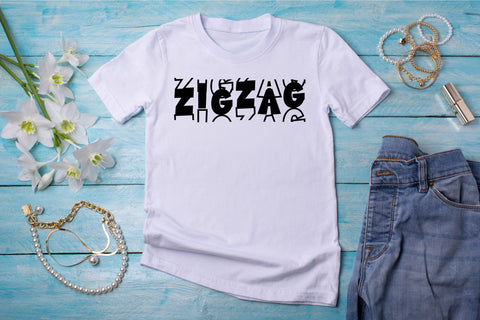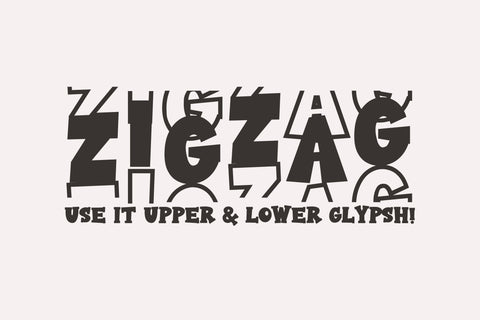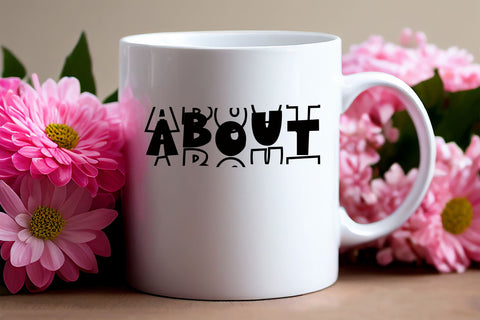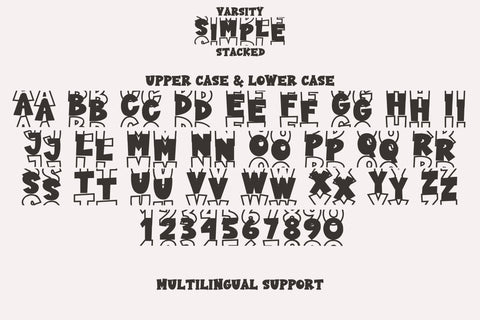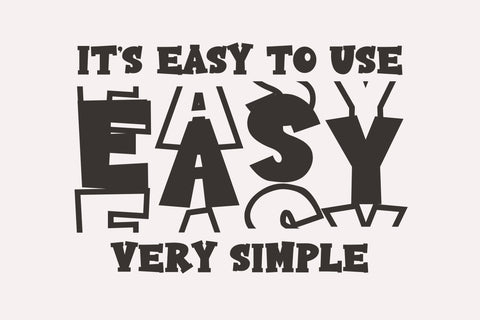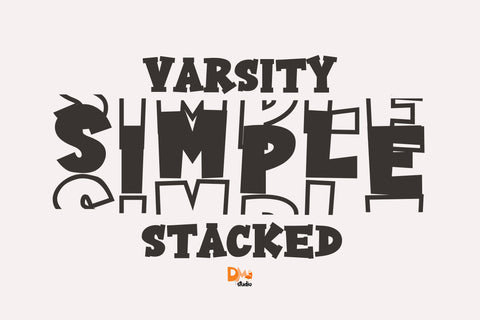
Varsity Simple Stacked
Varsity Simple Stacked – Clean & Bold Stacked Font
Varsity Simple Stacked is a modern and structured display font featuring a clean, stacked lettering style. Designed for bold and stylish typography, this font is perfect for branding, posters, social media graphics, merchandise, editorial layouts, and any project that needs a strong yet minimalistic look.
- Simple & Stacked Lettering Style: A bold, structured design that enhances readability and impact.
- Perfect for Modern & Trendy Projects: Ideal for branding, headlines, posters, and promotional materials.
- Versatile & Eye-Catching: Works great for display typography, advertisements, and minimalist designs.
- Complete Character Set: Includes uppercase, lowercase, numbers, punctuation, and multilingual support.